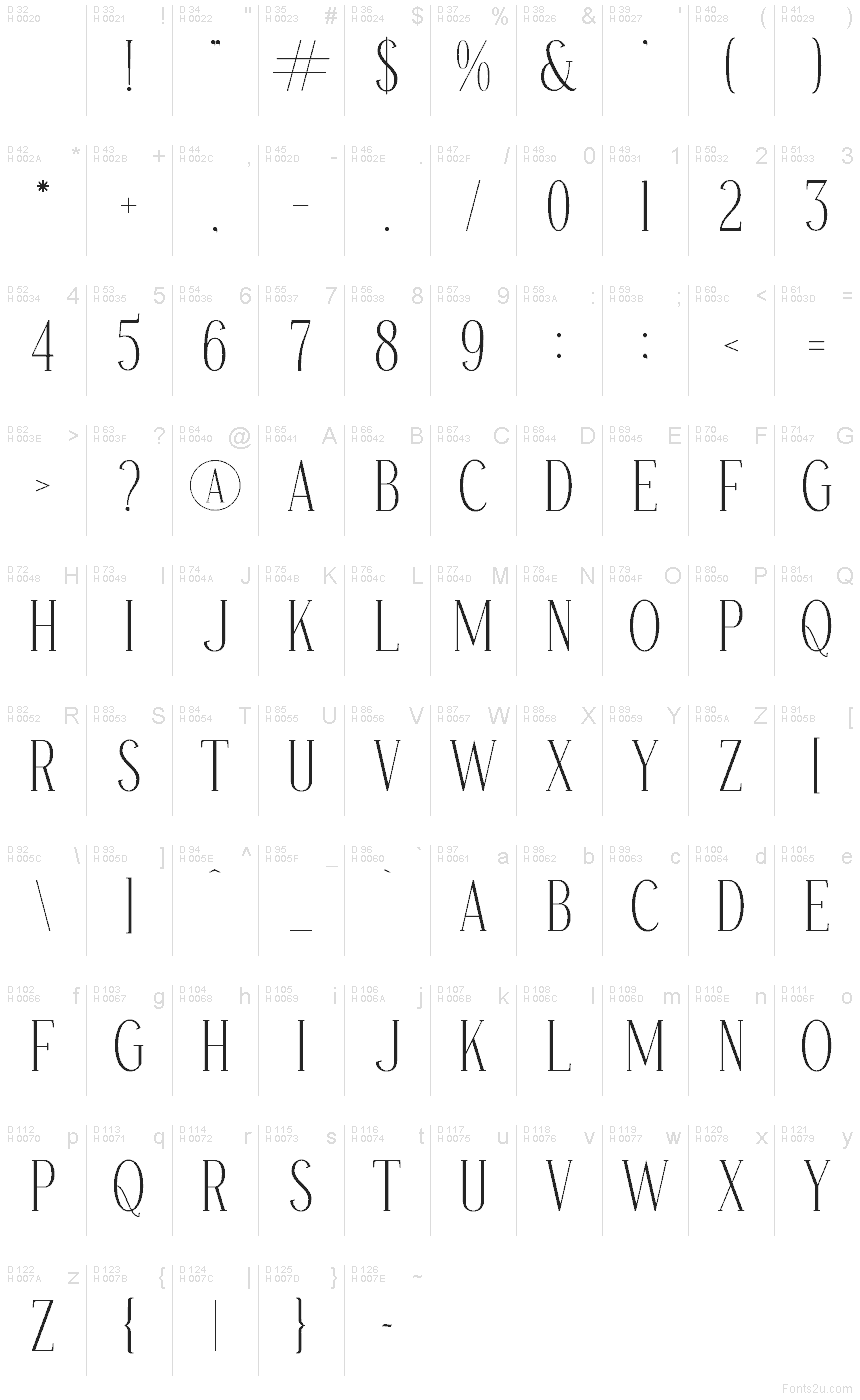
Basramle
Basramle font by Storytype Studio is a free elegant condensed serif typeface. Its signature is the striking vertical pull—needle-thin strokes, tall proportions, and knife-edge serifs that carve crisp, glossy shapes on the page. The rhythm feels taut and composed, giving headlines a luxe, editorial snap without shouting.
Using Basramle, you’ll get instant polish for fashion branding, magazine mastheads, perfume or skincare packaging, event invitations, poster titles, and sleek logos. The narrow build saves space while keeping letters graceful, so your message stays bold and refined. Set it large with a touch of tracking; pair with a quiet, modern sans for body copy to let this free font do the shimmering, high-glamour work up top.